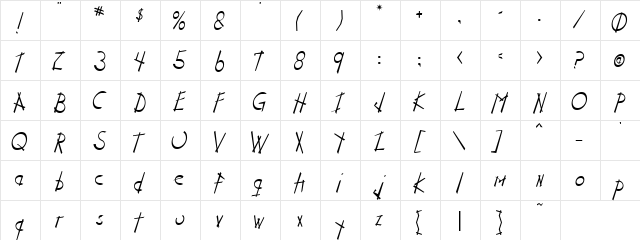
Julian Roberts Regular
Design Context for Julian Roberts Typeface
Julian Roberts is a composed and adaptable typeface that performs quietly and consistently across a wide range of design contexts.